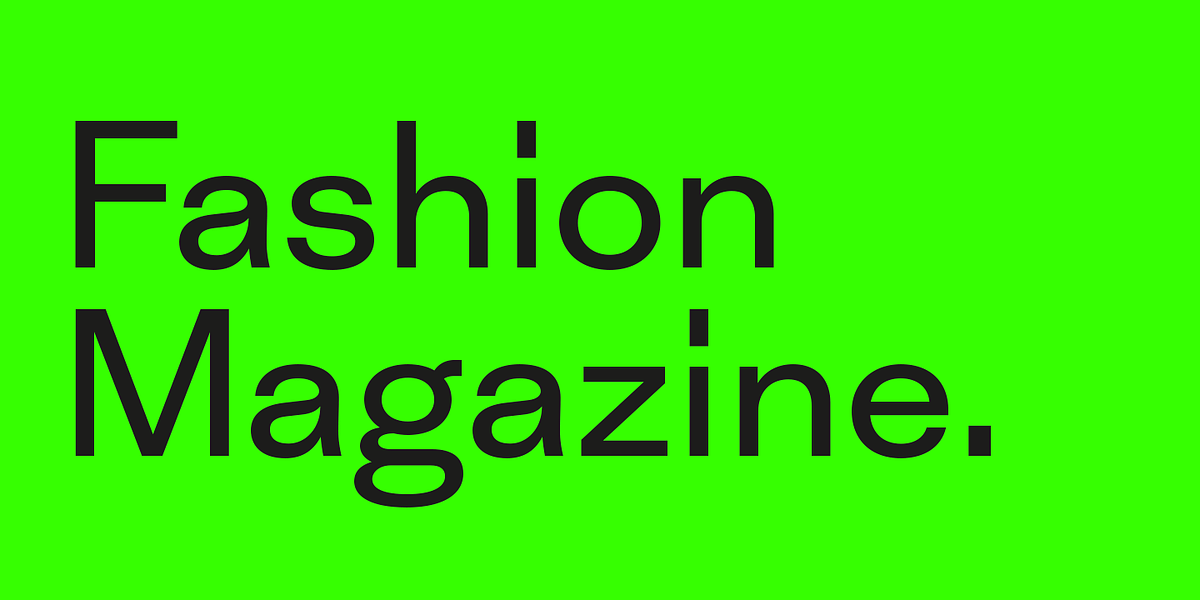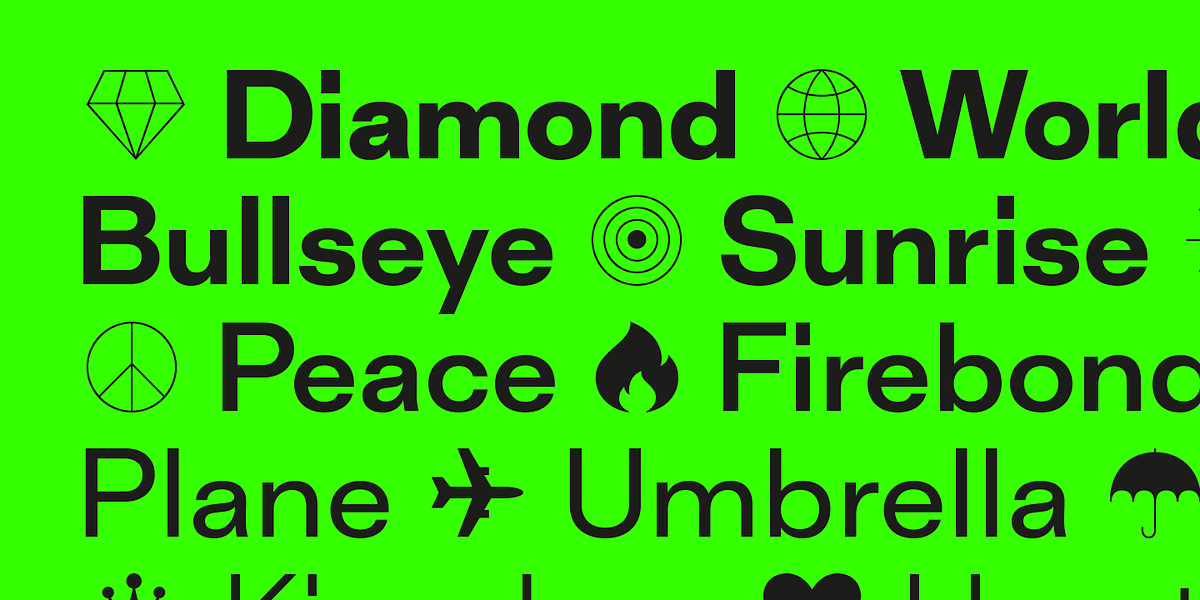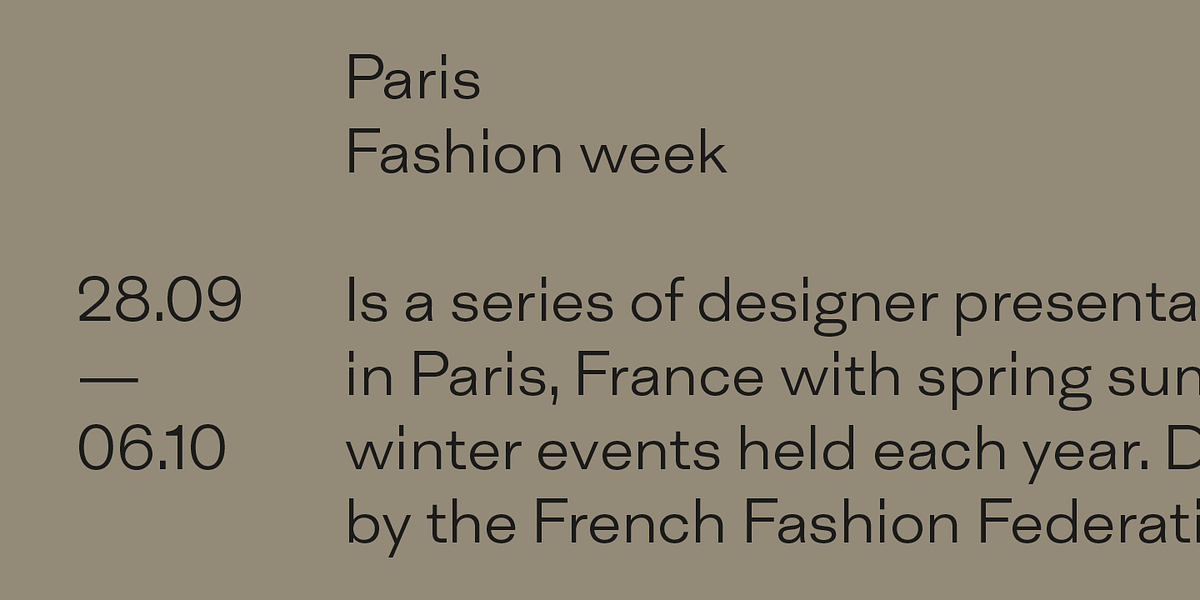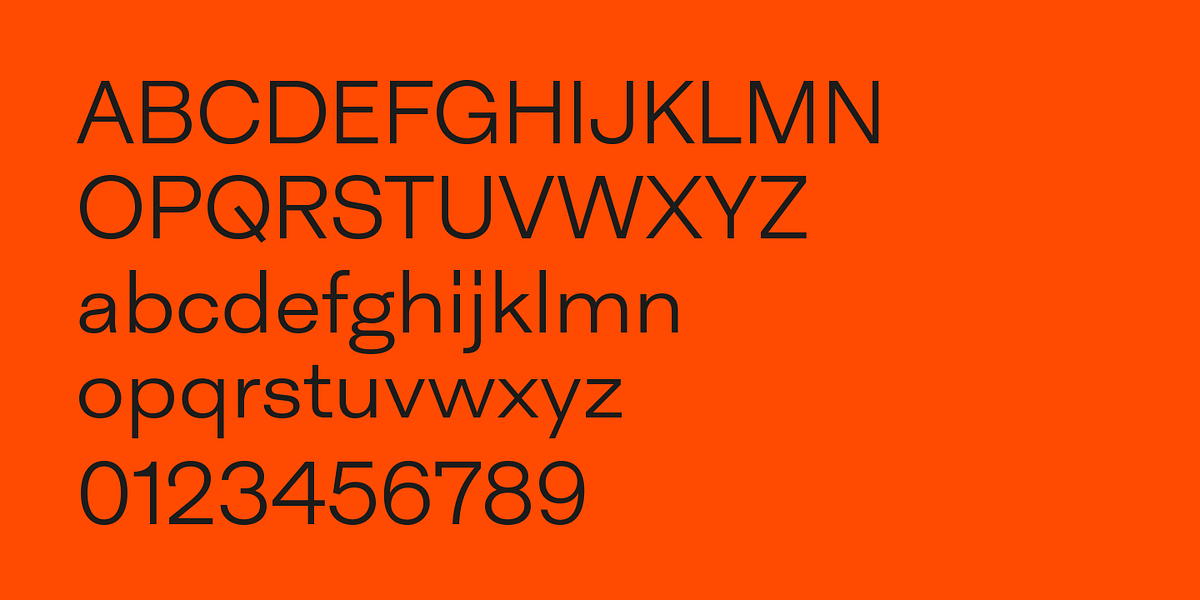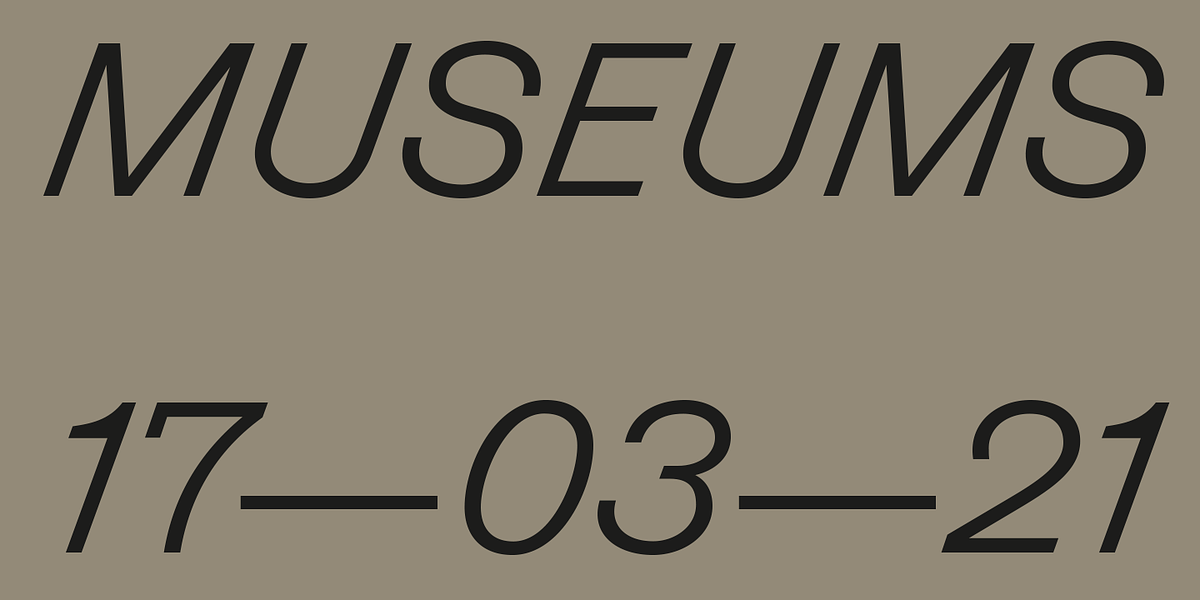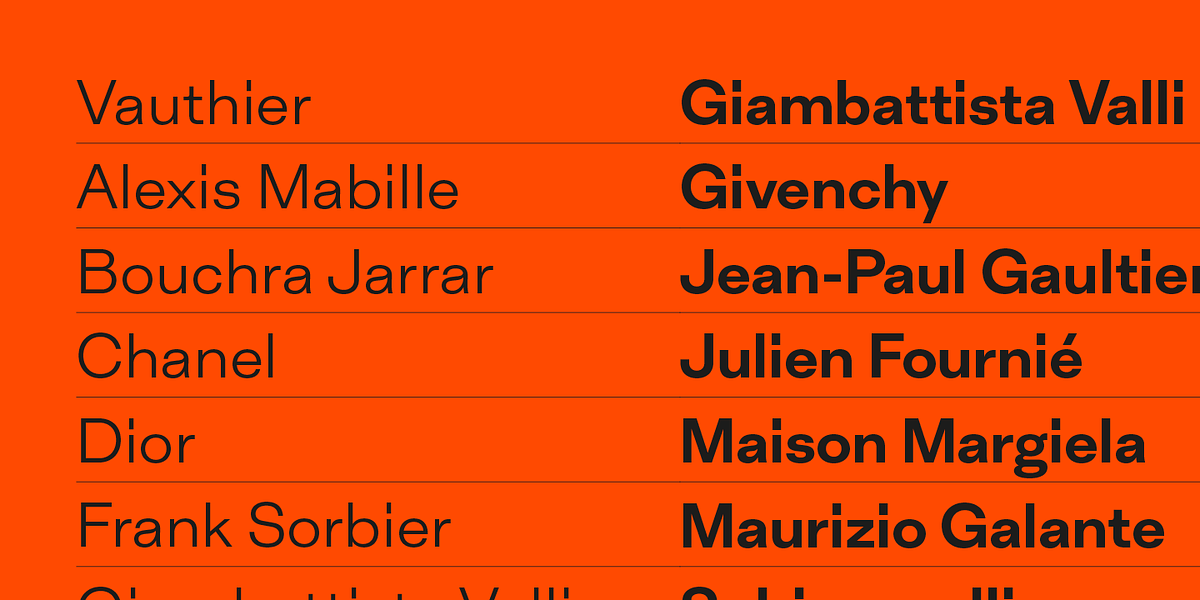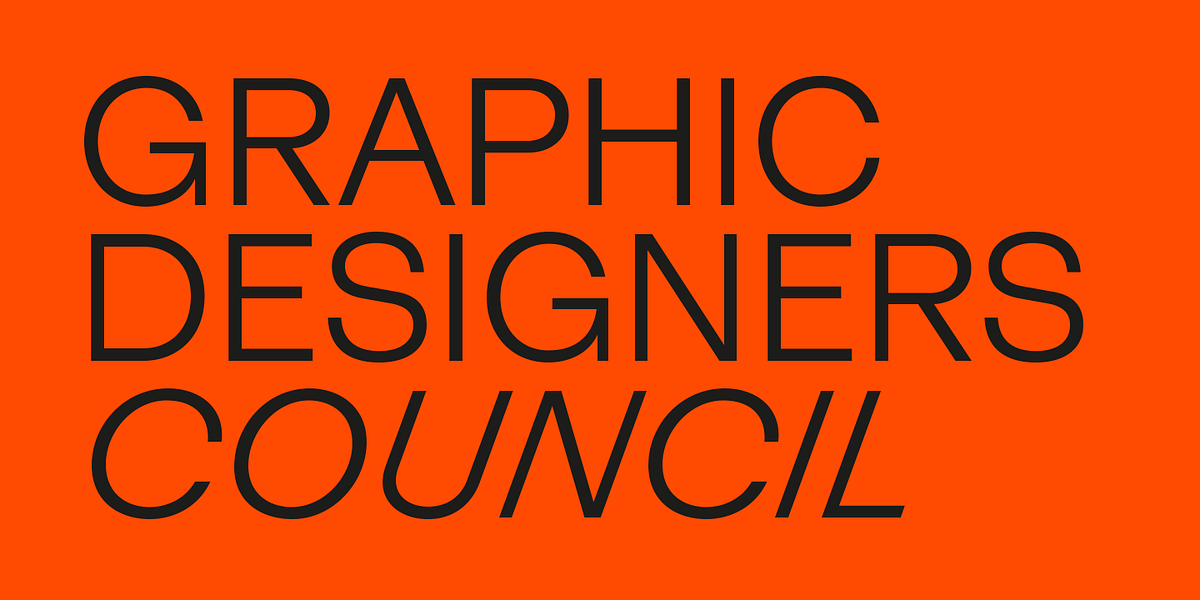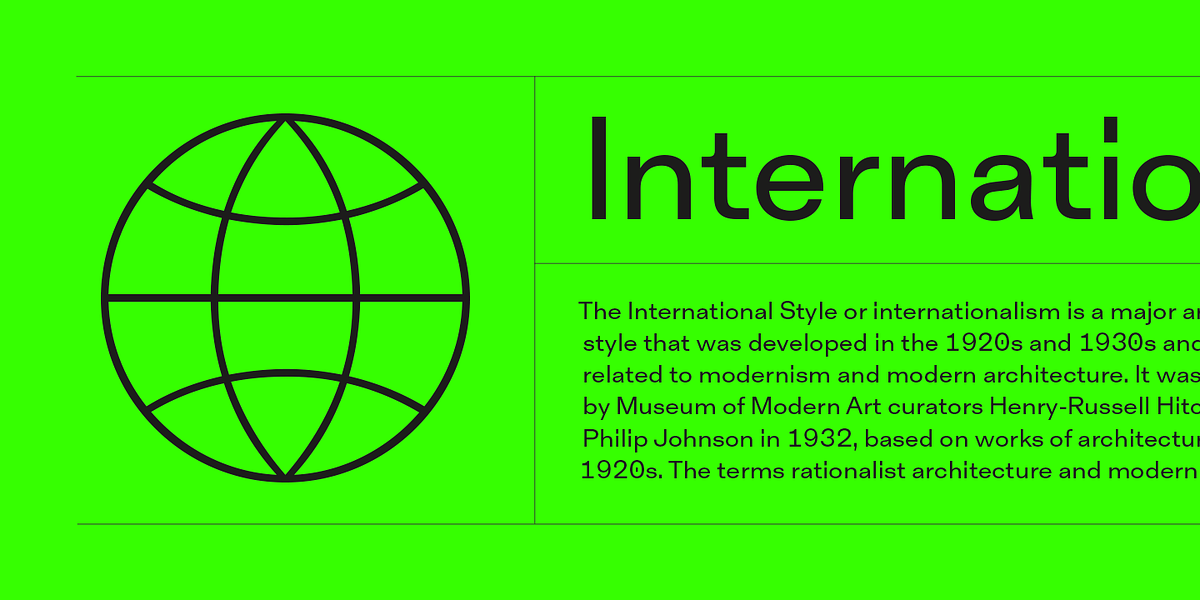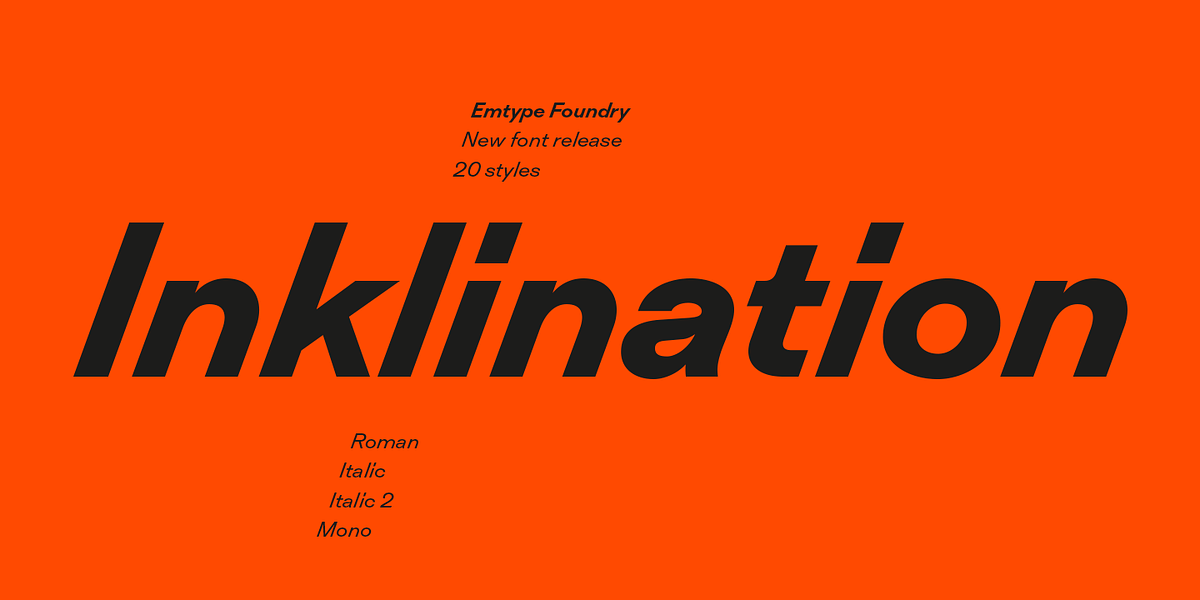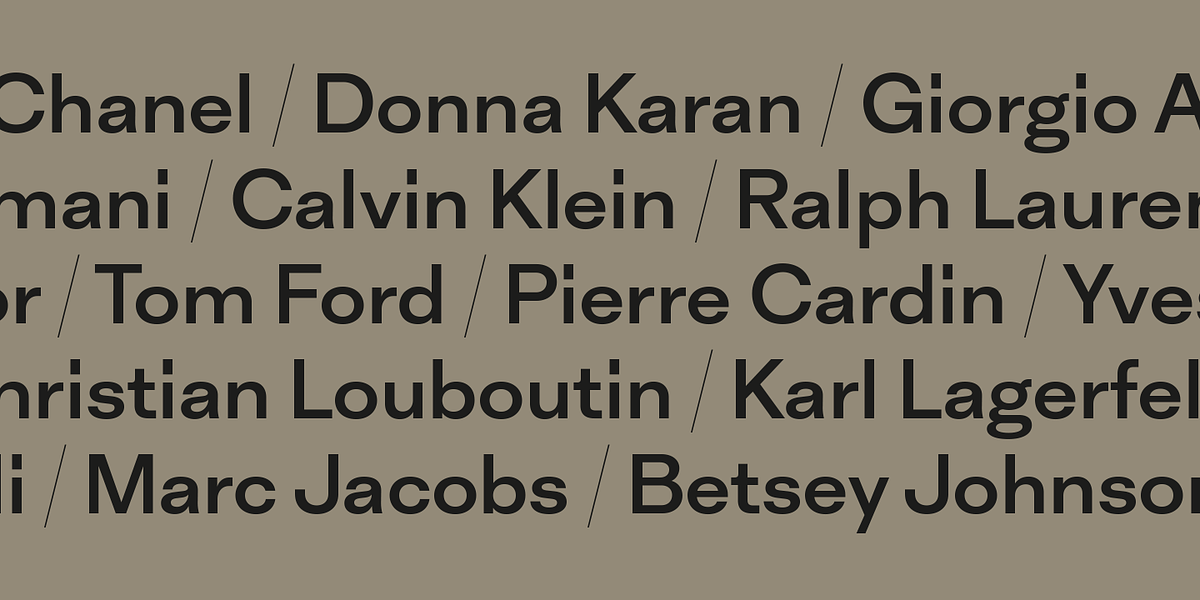
Inklination
Inklination is a grotesque sans-serif typeface characterized by its low x-height and distinctive italic styles. It aims for a sense of spaciousness and elegance through long ascenders and descenders. The family includes a monospaced version in five weights, making it suitable for both paragraph text and programming applications.